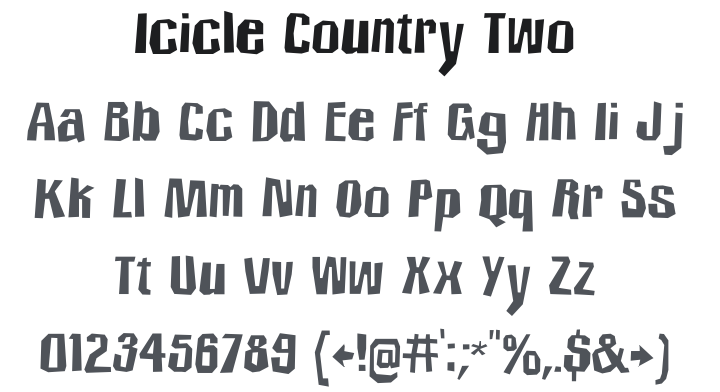
Icicle Country Two Font
About Icicle Country Two
Icicle Country Two is a frozen, angular ice display typeface where sharp, pointed letterforms mimic the look of hanging icicles — crystalline edges and jagged strokes that feel genuinely cold to the touch. Its wintry geometry is bold yet decorative. Perfect for Christmas and winter holiday designs, ski resort branding, frozen food packaging, seasonal posters, and any headline that needs icy, frost-bitten atmosphere.